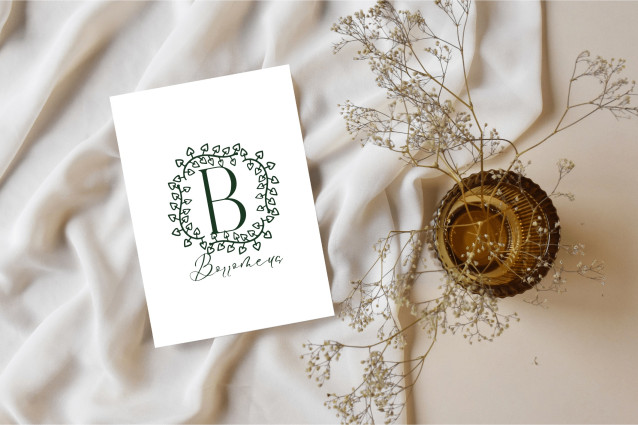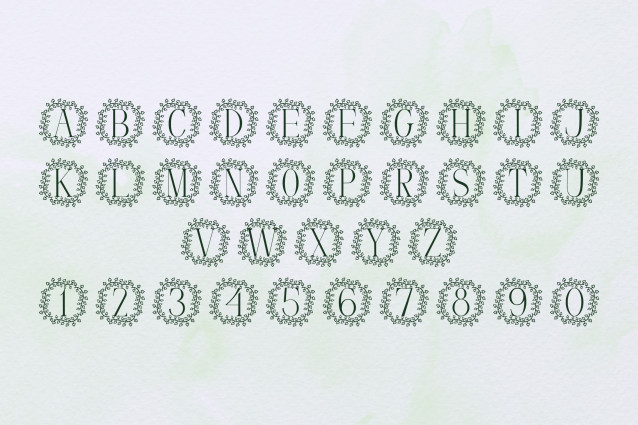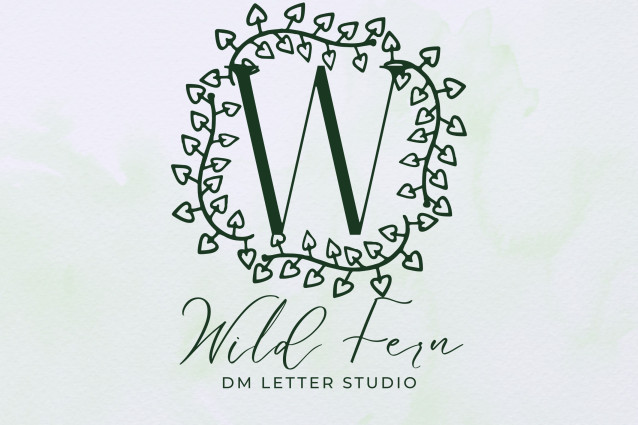
Wild Fern Monogram Font
Wild Fern Monogram Font is a nature-inspired serif font that brings elegance and wilderness together in harmony. Each uppercase letter is adorned with soft, detailed fern illustrations, creating a graceful and organic look perfect for rustic, bohemian, and botanical-themed projects. Whether you’re crafting wedding designs or custom branding, Wild Fern Monogram adds a refined earthy touch.